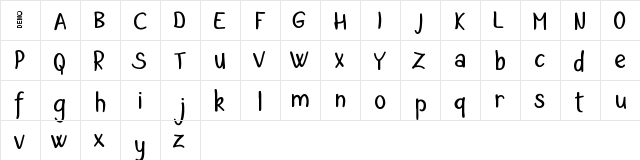
Balton Demo
Design Context for Balton Typeface
Balton is a composed and adaptable typeface that performs quietly and consistently across a wide range of design contexts.
Pro Tip: Use Balton in both headline and body roles to test its range before committing to a single application.